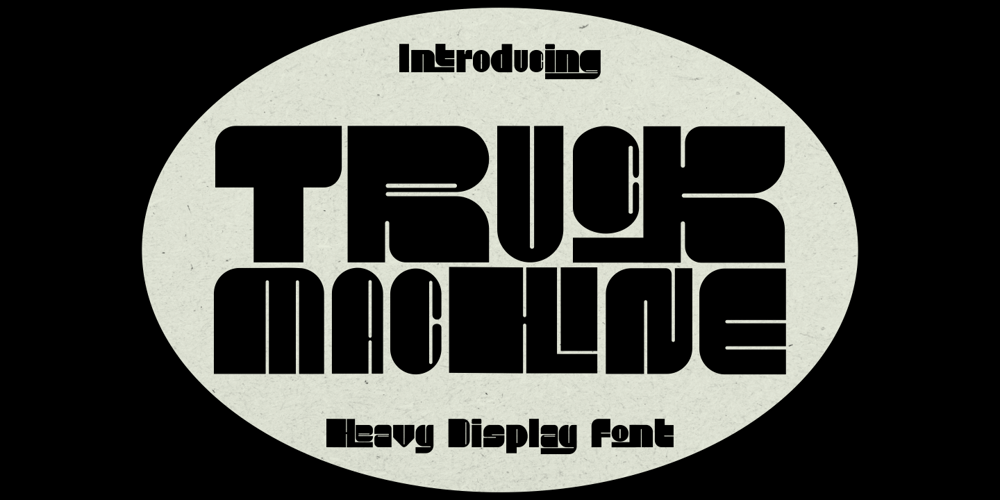
Truck Machine Font Family was designed by Putra Novembria Candra Kusuma and published by Putracetol. Truck Machine contains 1 styles and family package options. Truck Machine is a heavy display font. This font has a very bold body, with unequal widths for the characters. Plus this font has a large number of ligatures, 160 ligatures. So that makes this font more cool and unique. It is suitable for your projects that require fonts with bold and strong characteristics. Such as branding, logos, titles, headlines, printing, magazines, quotes, posters, fashion, t-shirts, apparel and others.This font is also support multi language.To access the alternate glyphs, you need a program that supports OpenType features such as Adobe Illustrator CS, Adobe Photoshop CC, Adobe Indesign and Corel Draw.